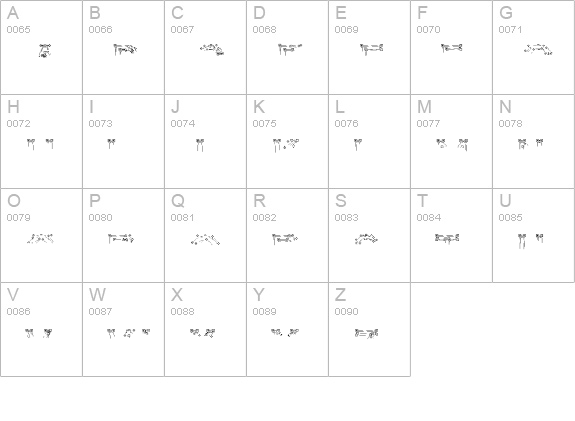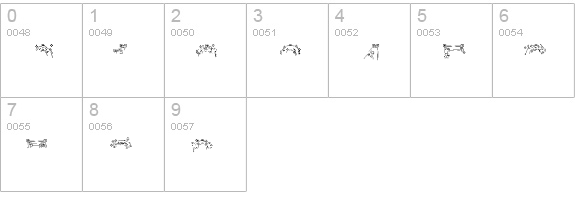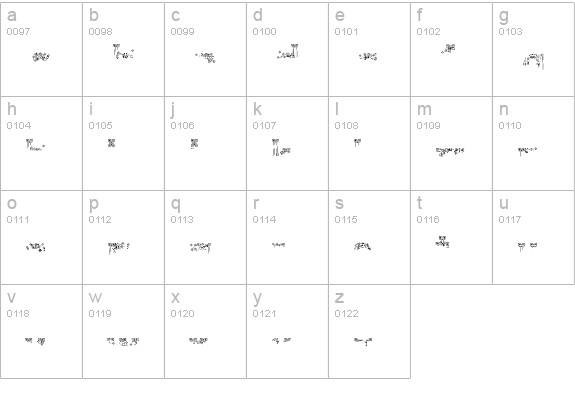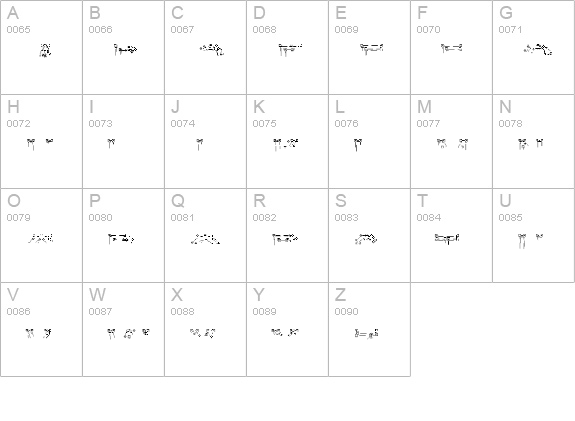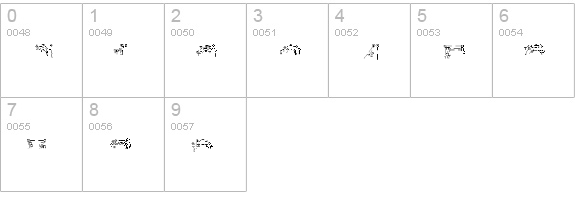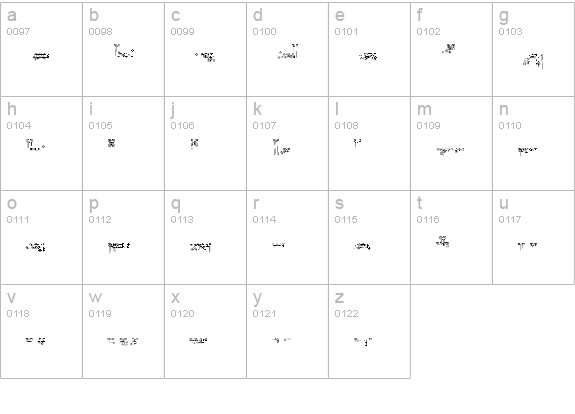
Dotty-3PartThree Font Details
Dotty-3PartThree is a charming and playful font that brings a whimsical touch to any design project. This font features a unique mix of rounded edges and dotted details, giving it a fun and quirky appearance. Perfect for adding a touch of personality to invitations, posters, greeting cards, and more, Dotty-3PartThree is sure to stand out. Best of all, this font is available for free download at FontsMarket.com. Whether you're a designer looking to add a fresh element to your work or someone simply looking to add a fun twist to your personal projects, Dotty-3PartThree is a fantastic choice. Download it today and let your creativity shine with this delightful and free font!